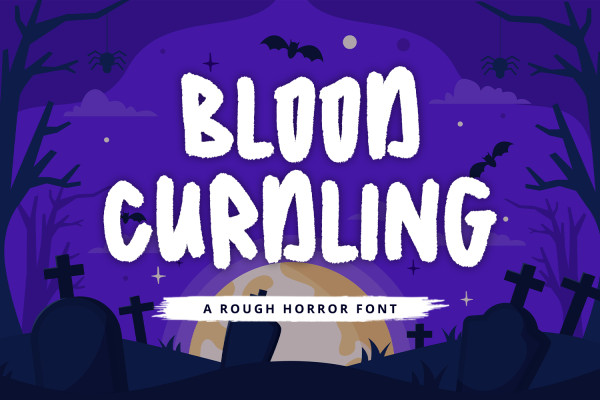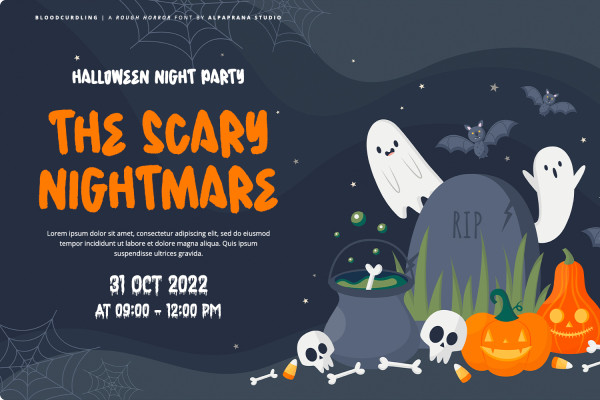
Bloodcurdling Font
Bloodcurdling Font is a cute horror display font with playful feels. It will be perfectly used for Branding, Logo Design, Lettering, Logotype, Clothing, Poster, magazine, packaging, posters, shopping bags, t-shirts, book covers, photography, special events and other design project.